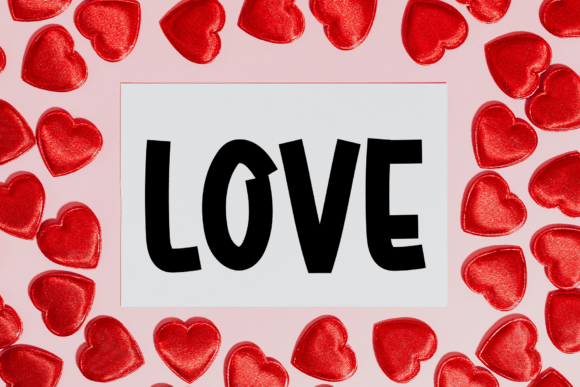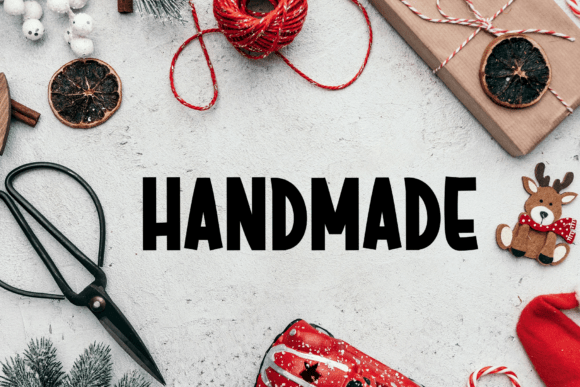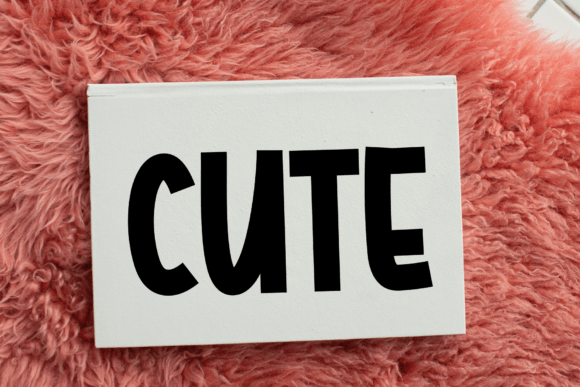
Introduction to Enjoy Easter Font
As a designer, there’s nothing quite like the thrill of discovering a new font that perfectly captures the essence of a project. Whether you’re working on a branding campaign, crafting social media graphics, or designing invitations, the right font can make all the difference. And for Easter-themed projects, I’m excited to introduce you to the perfect companion: Enjoy Easter Font.
This charming handwritten font exudes a sense of warmth and approachability, with smooth strokes and organic lines that evoke a relaxed atmosphere. Whether you’re looking for a high-quality font for your next creative project or simply need a design resource that’s easy to use, Enjoy Easter Font is an excellent choice. Plus, with its transparent background, you can seamlessly integrate it into your designs without any hassle.
Key Features of Enjoy Easter Font
- High-quality design with a transparent background, perfect for creative projects.
- Enjoy Easter Font is available in a single size, making it easy to use in various design contexts.
- Unique Easter-themed design elements, ideal for spring and holiday-themed creative projects.
Honest Review: Enjoy Easter Font
I recently stumbled upon the Enjoy Easter Font, and I must say it’s a lovely addition to any designer’s toolkit. As a free download, it’s hard to go wrong, especially when it comes to a high-quality font like this one.
One of the standout features of the Enjoy Easter Font is its transparent background, which makes it perfect for creating beautiful graphics and designs. I’ve used it in a few creative projects and been impressed with how well it holds up to different backgrounds and layouts.
Here are some things that work well with the Enjoy Easter Font:
- ✨ High-quality design that’s perfect for any creative project
- ✨ Transparent background for easy integration with different designs
However, I did notice a few limitations:
- ⚠️ Limited character set, which may not be suitable for longer texts
- ⚠️ Not ideal for use in body text due to its decorative nature
Overall, I’m quite impressed with the Enjoy Easter Font. It’s a great design resource for anyone looking to add a touch of whimsy to their creative project. Just be aware of its limitations and use it accordingly.
The Enjoy Easter Font is a free download, high-quality design resource perfect for any creative project. This font features a transparent background, making it easy to customize and integrate into your designs.
For the best results, use the Enjoy Easter Font in conjunction with other design elements, such as graphics and images. You can also experiment with different font sizes and colors to create a unique look.
The Enjoy Easter Font is perfect for a variety of creative projects, including Easter-themed designs, spring-inspired graphics, and holiday cards. You can also use it in business presentations and documents to add a touch of whimsy and fun.